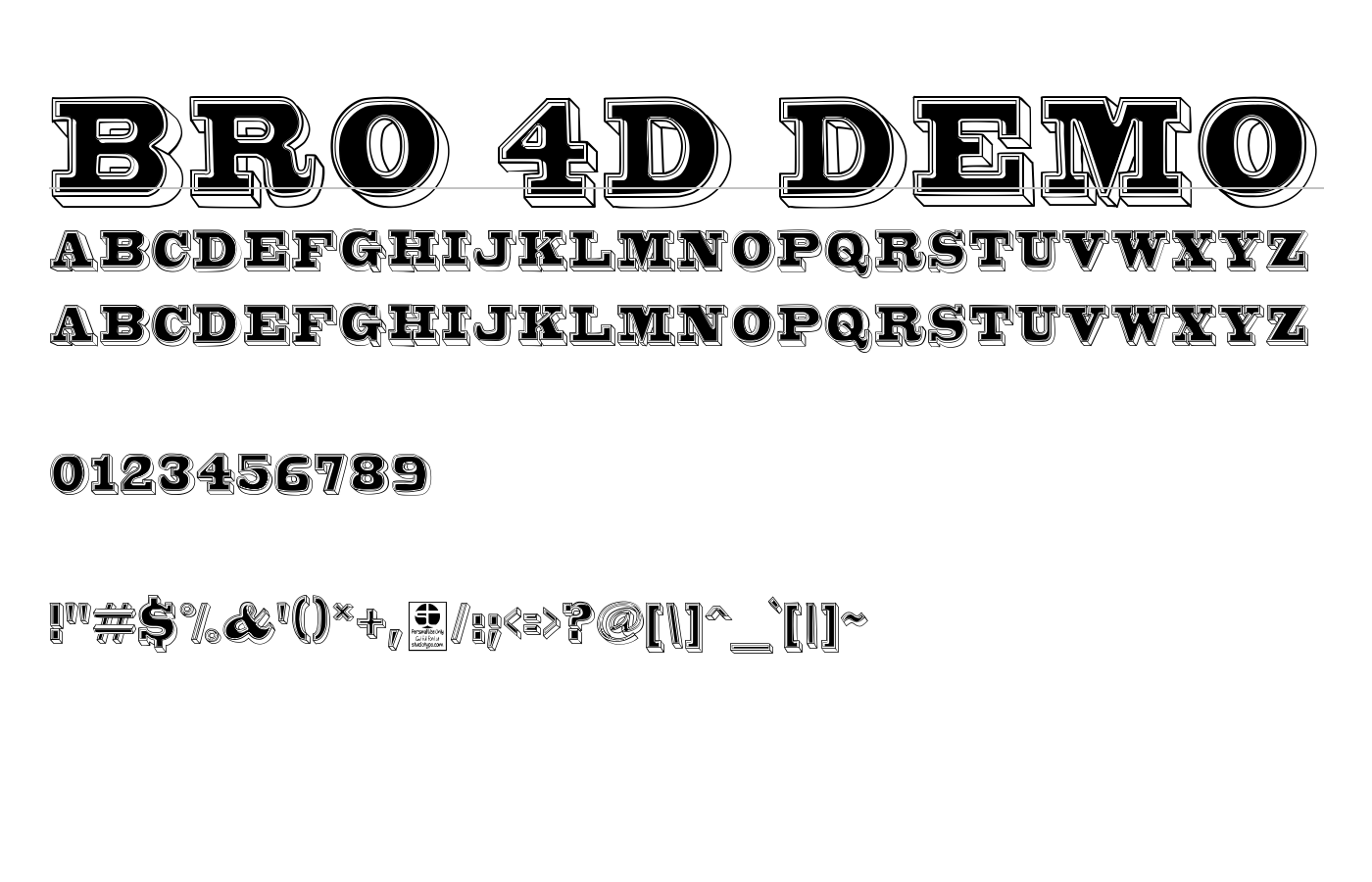
Bro 4D Demo is a bold, slab serif typeface with a distinctive three-dimensional shadow effect that gives it a strong, vintage yet playful character. Its heavy weight, large x-height, and high contrast strokes make it perfect for attention-grabbing headlines, logos, or posters, where a dynamic and retro aesthetic is desired. This font works best in display settings that benefit from its dramatic style and eye-catching depth.
Bro 4D Demo Font
About Bro 4D Demo Font